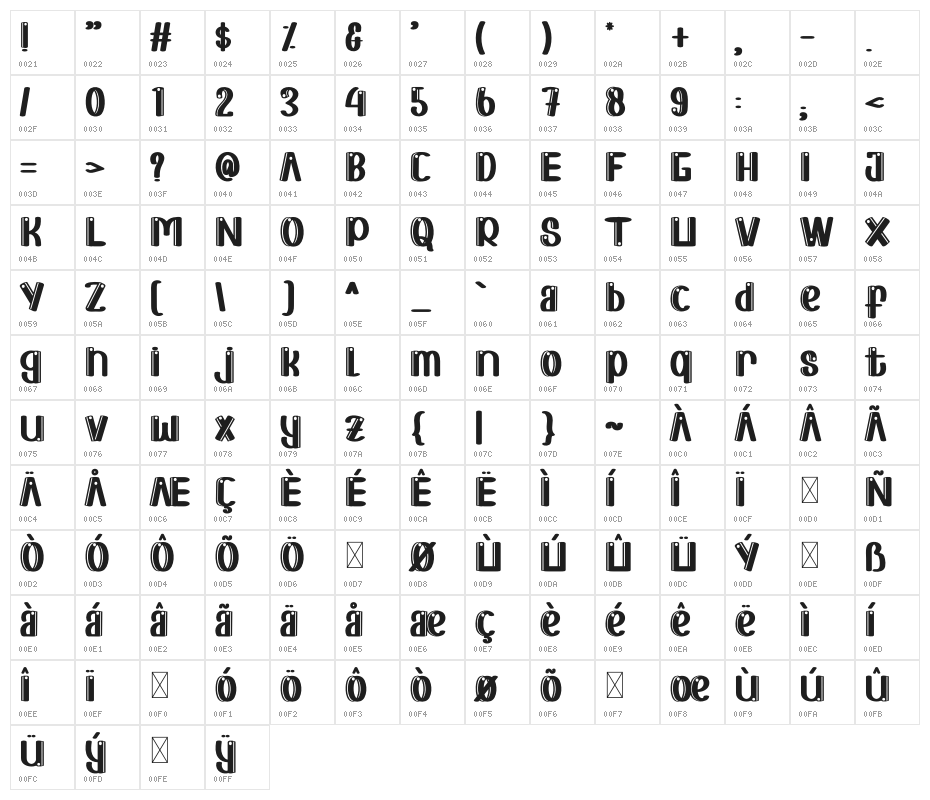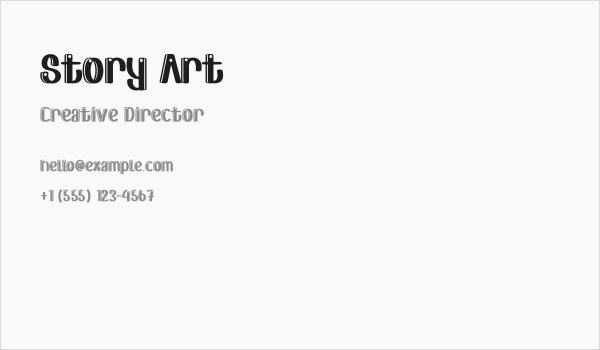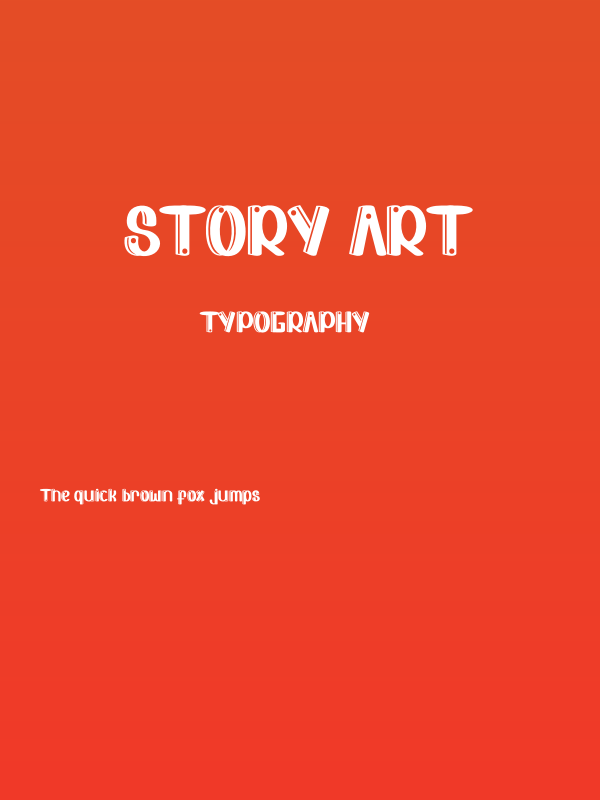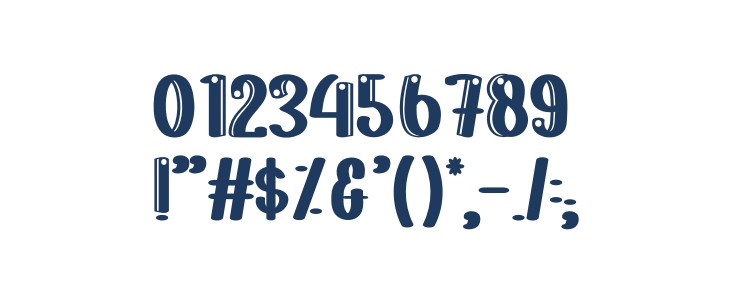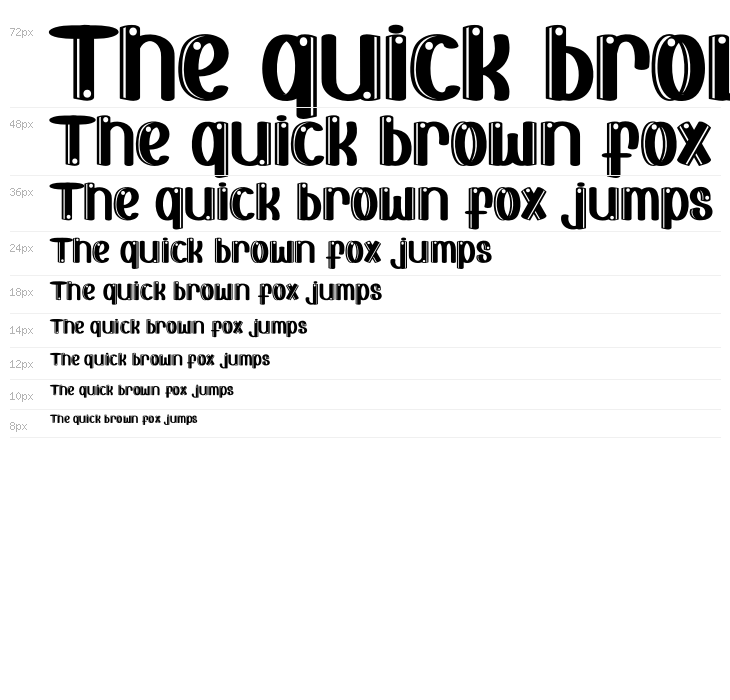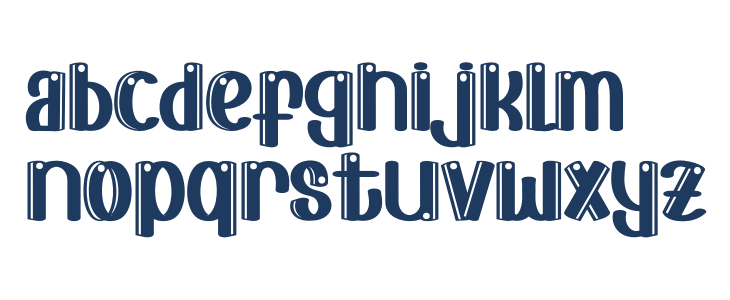
Story Art Font
Story Art Description
This font features a playful and decorative style with a unique design element that includes small circular cutouts on the strokes of each character. The letters are bold and rounded, giving them a friendly and approachable appearance. The uppercase and lowercase letters maintain a consistent style, with the lowercase characters slightly smaller in size but equally bold. Numbers and special characters follow the same design principles, ensuring uniformity across all glyphs. The font's distinctiveness makes it suitable for creative and artistic projects, where a touch of whimsy and uniqueness is desired.
| Proposed Projects | Ideal for children's books, creative posters, playful branding, and artistic invitations. |